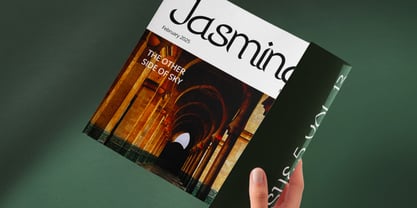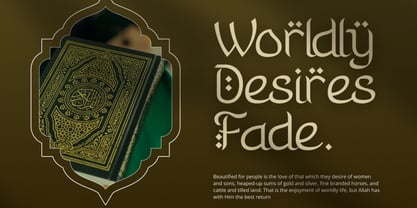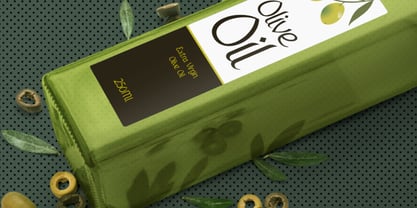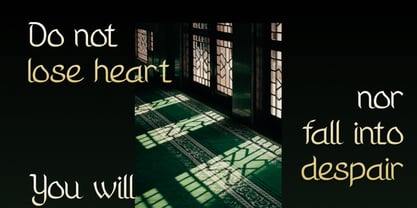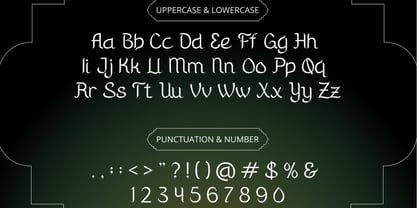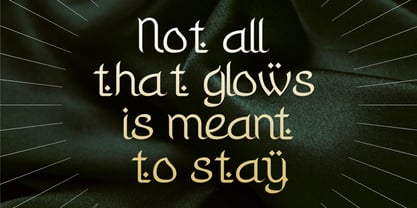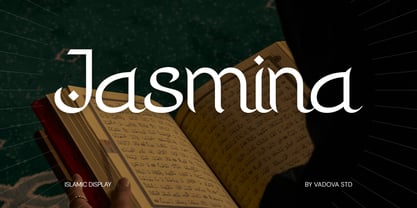
Jasmina
by Vadova Std
Jasmina is a display typeface that captures the essence of tradition, grace, and timeless storytelling. Thoughtfully crafted to evoke emotion and depth, Jasmina invites a sense of cultural heritage into every design. Its presence is elegant yet powerful, making it an ideal choice for visual narratives that aim to convey meaning beyond aesthetics. Whether you’re designing for religious events, festive greetings, cultural campaigns, or soulful editorials, Jasmina adds a poetic rhythm to your layout. The name itself suggests delicacy and dignity qualities that shine through each letterform. Perfect for creatives who value purpose-driven design, Jasmina turns written words into lasting impressions.